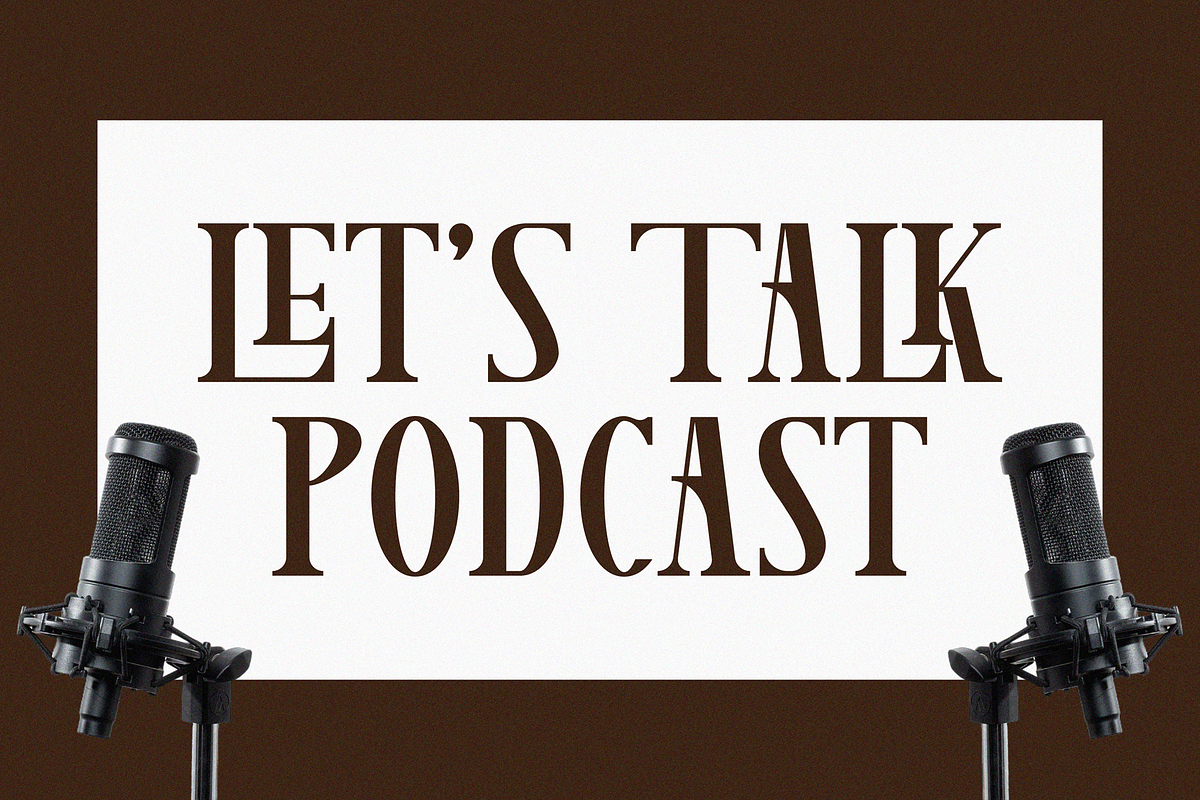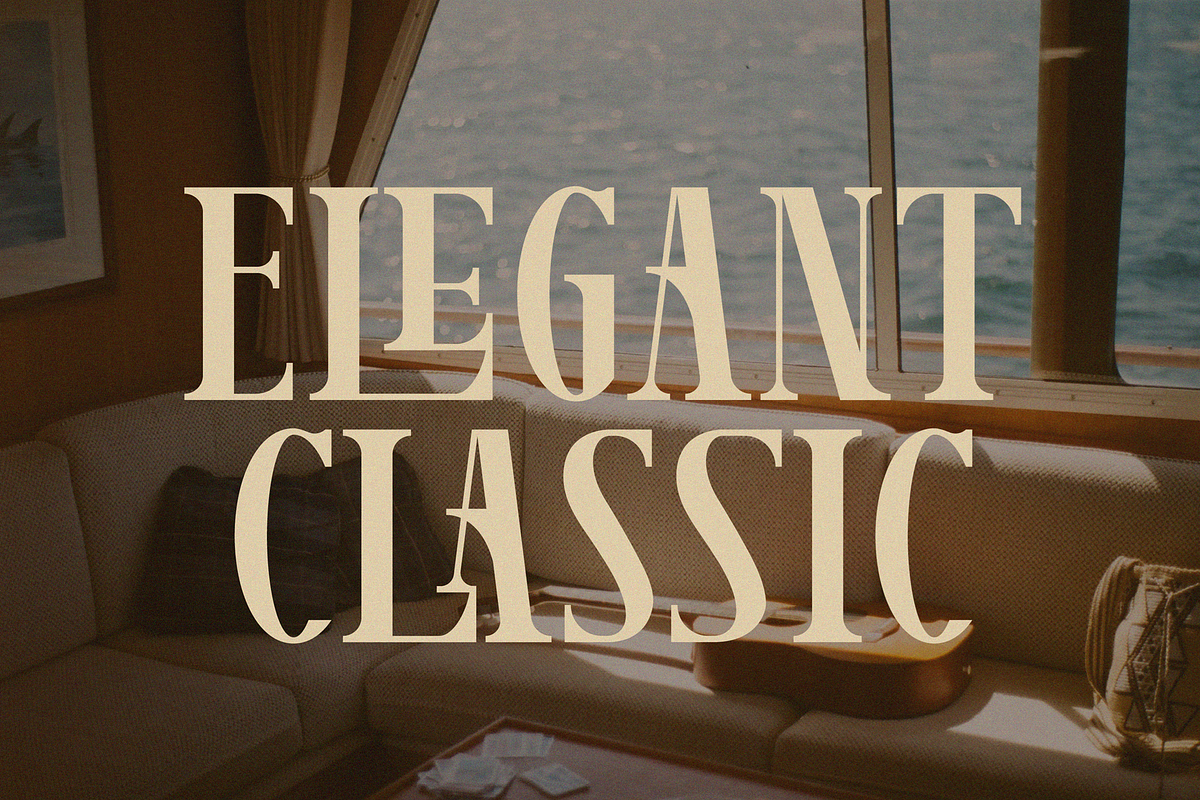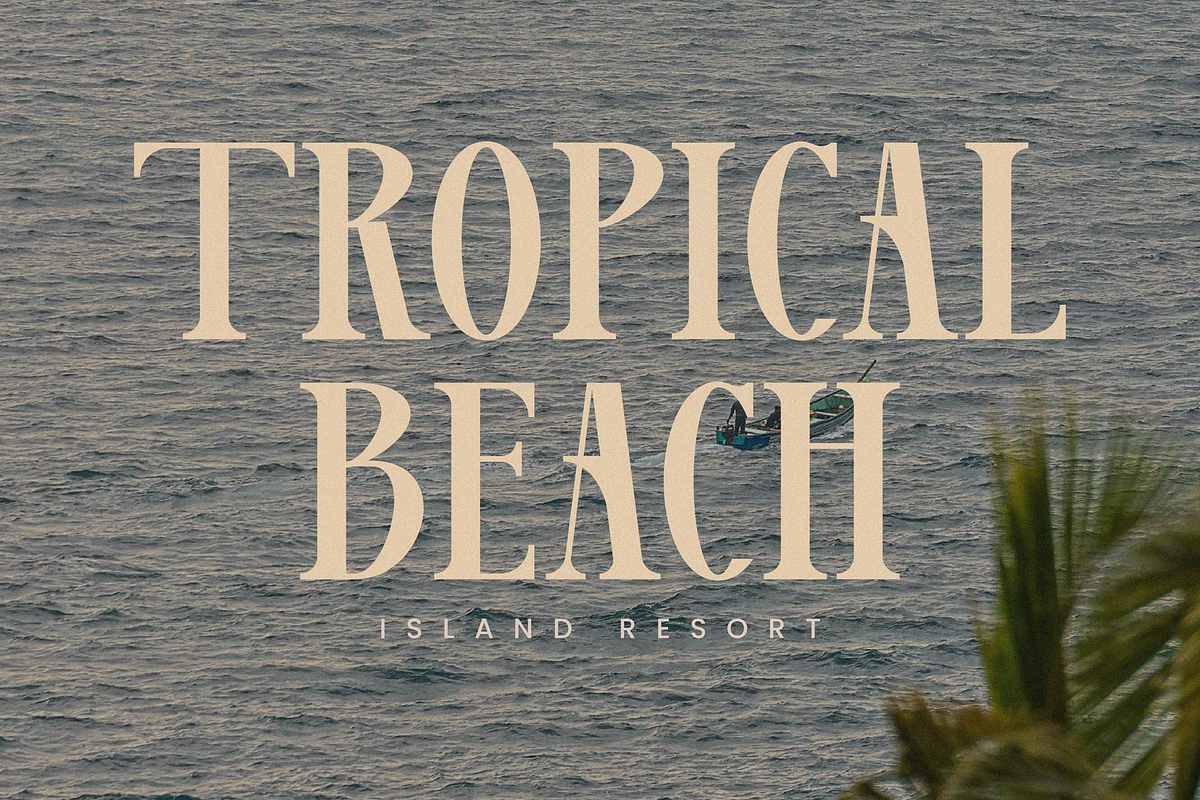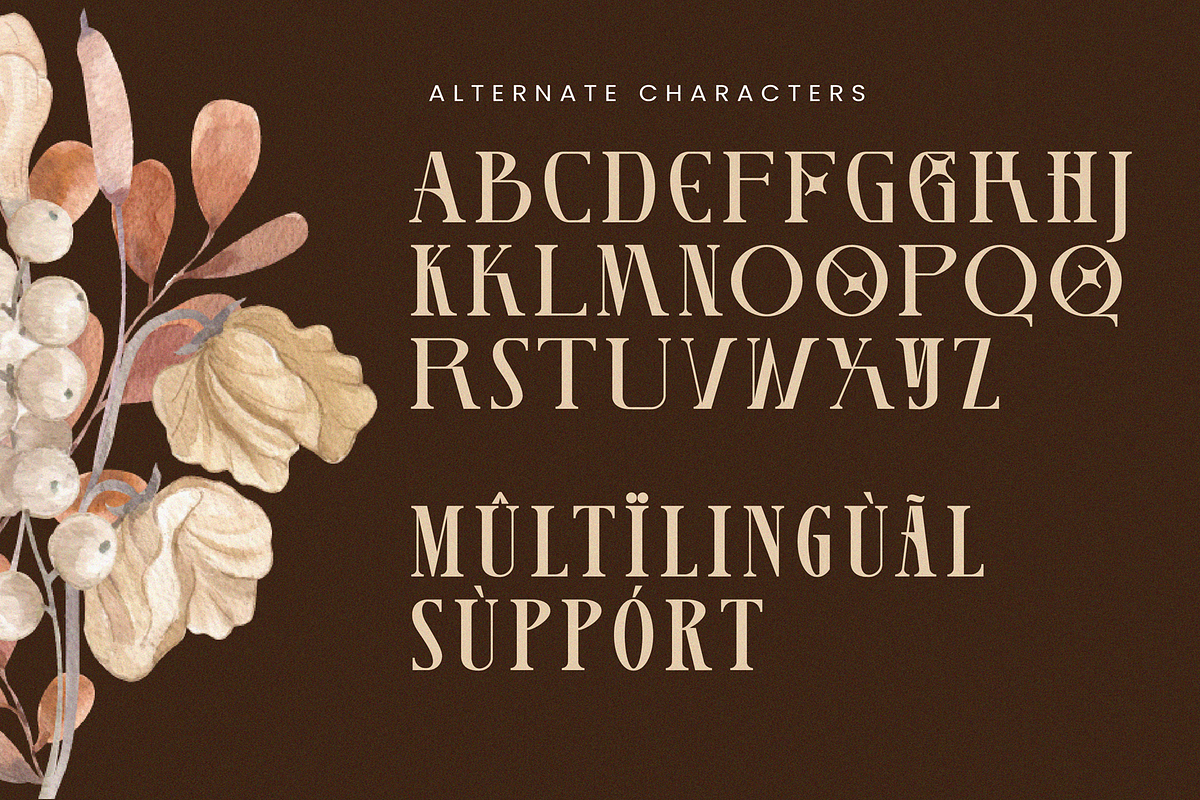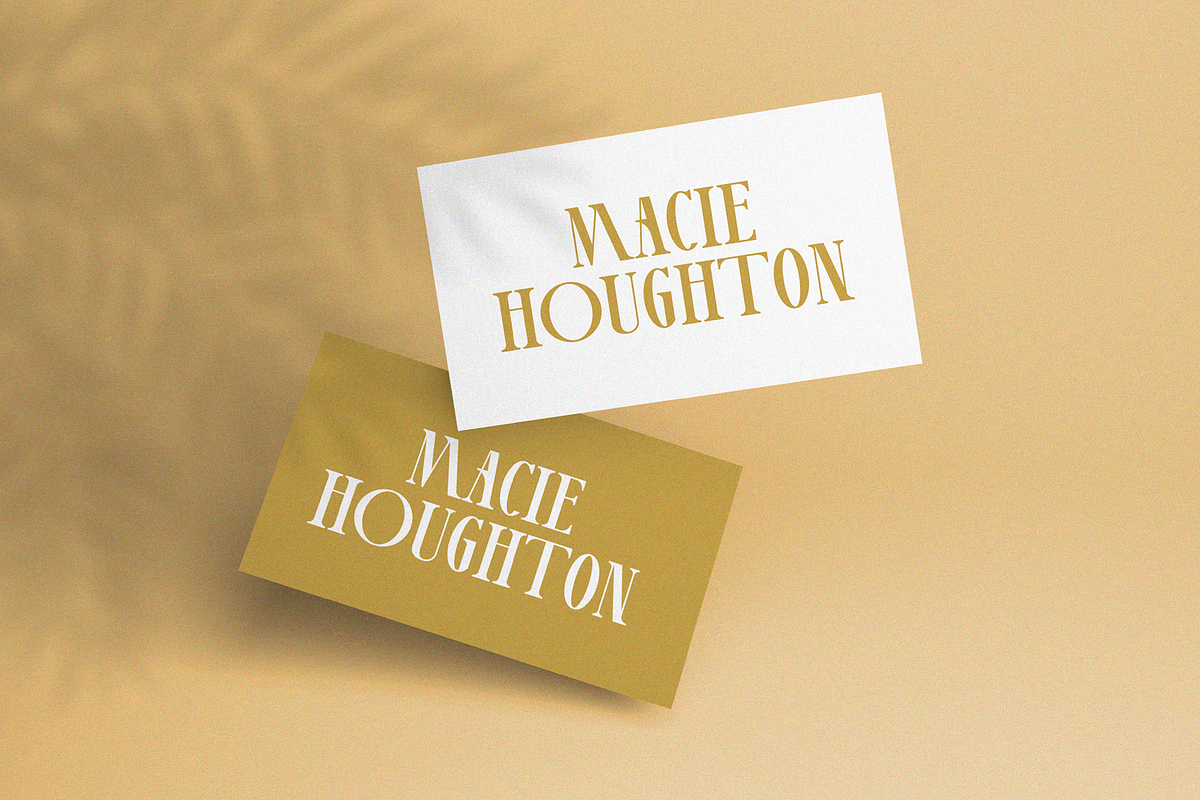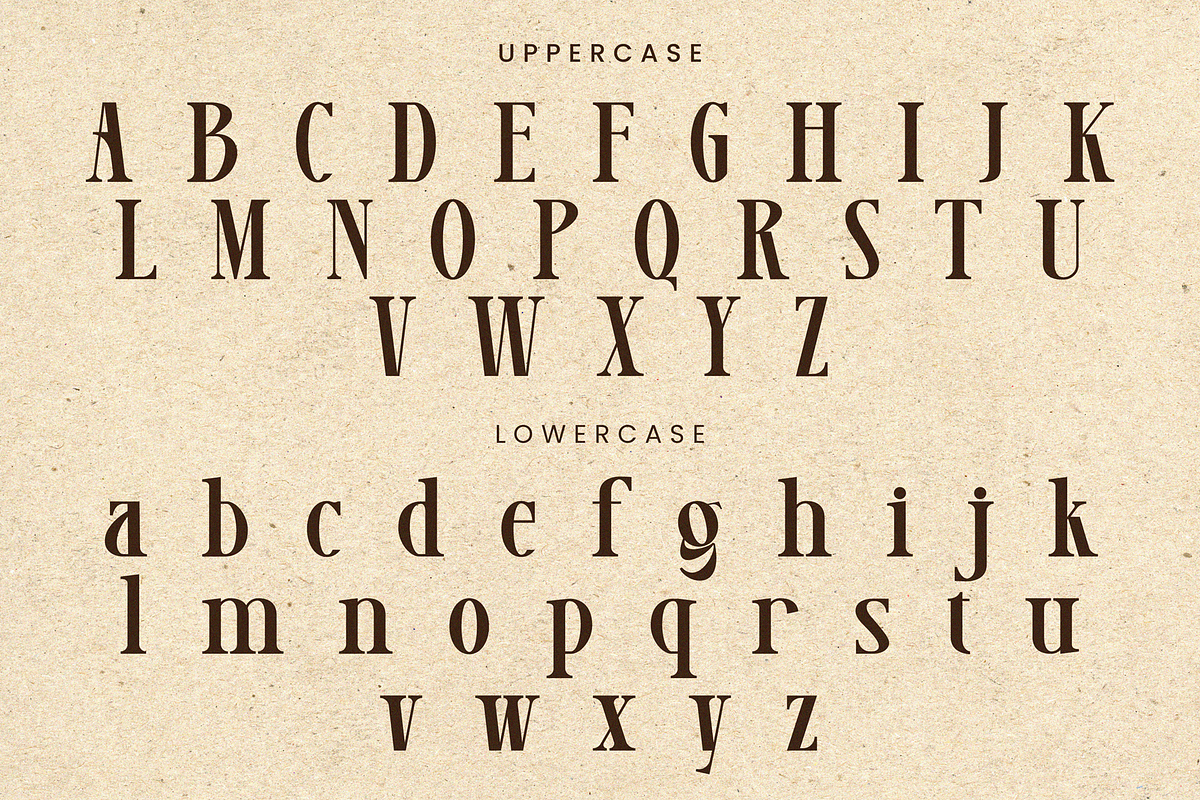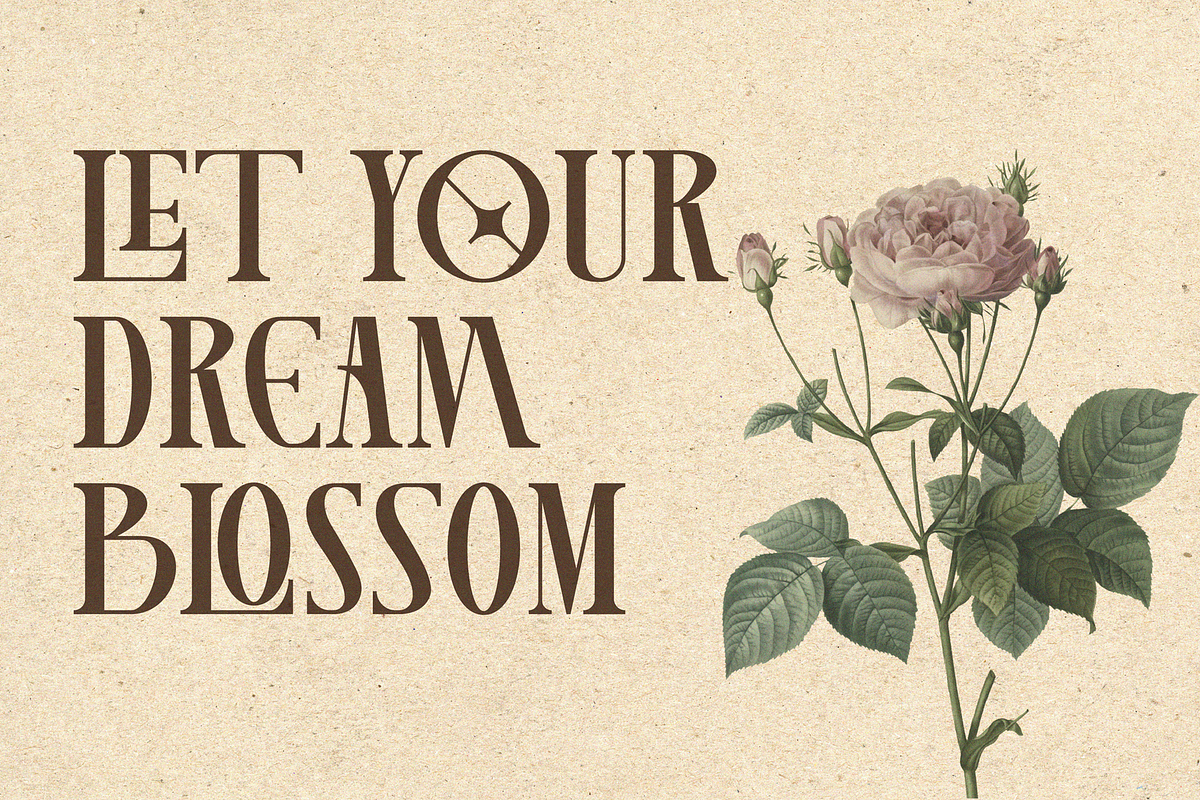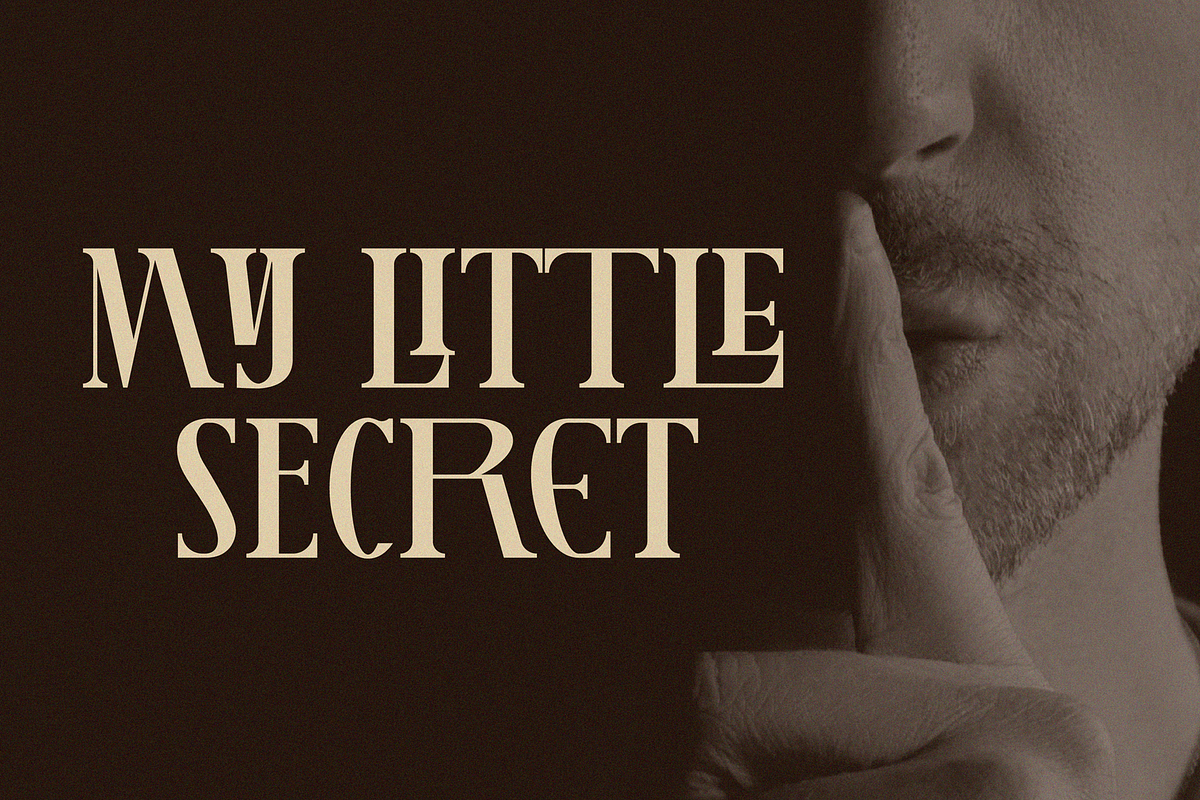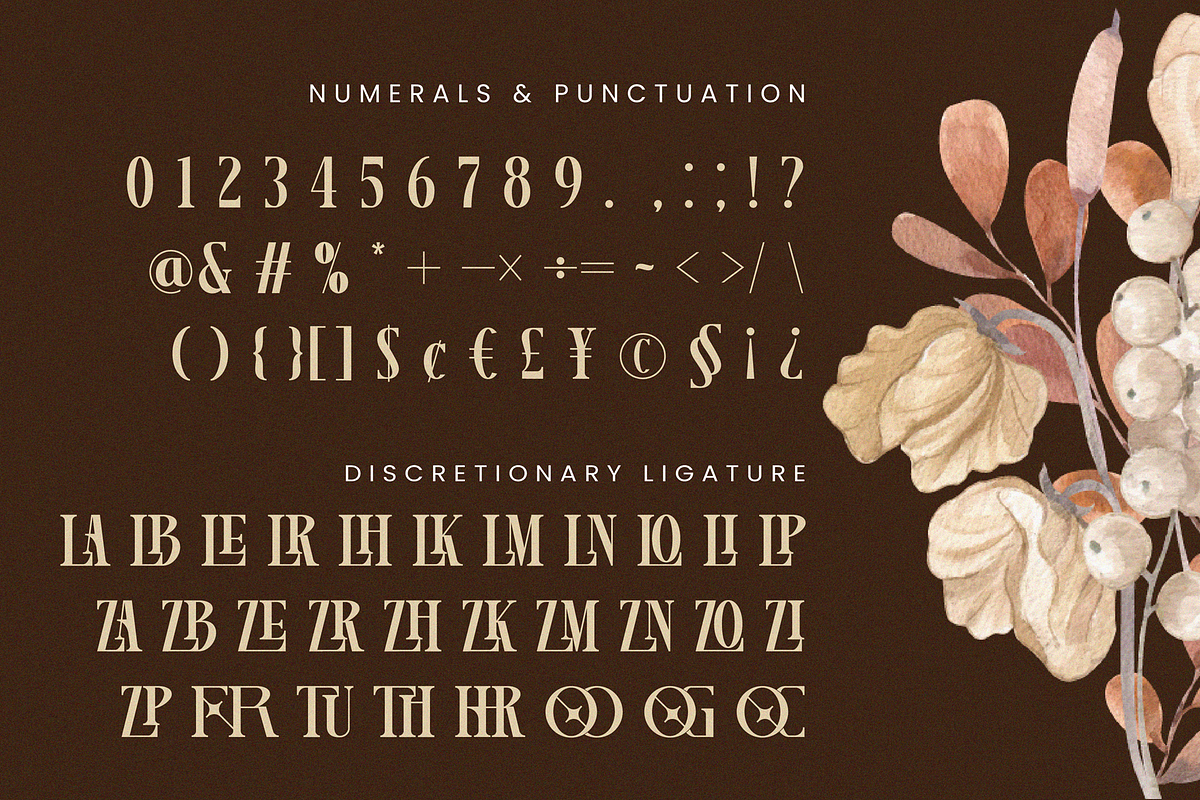
Lamoonze - Serif Display Font
Lamoonze is an elegant and bold serif font. Its elegant and cool look makes it the perfect choice for logos, branding, invitations, stationery, wedding designs, social media posts, and so much more. Lamoonze Font is PUA encoded which means you can access all of the glyphs.
- Alternate Characters